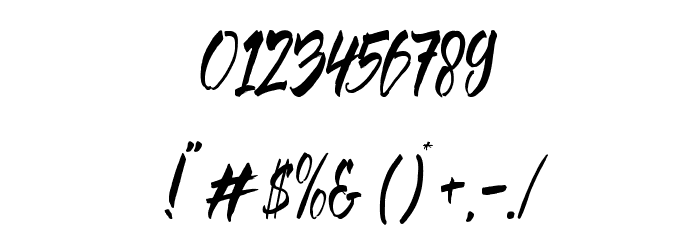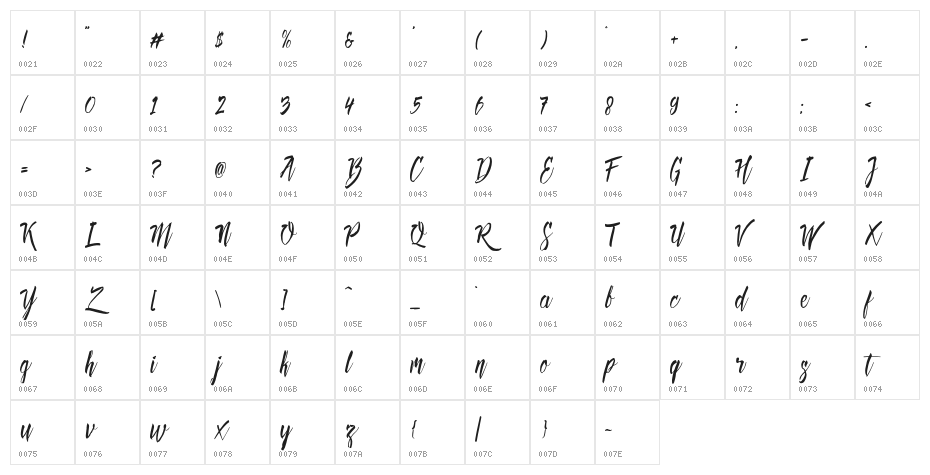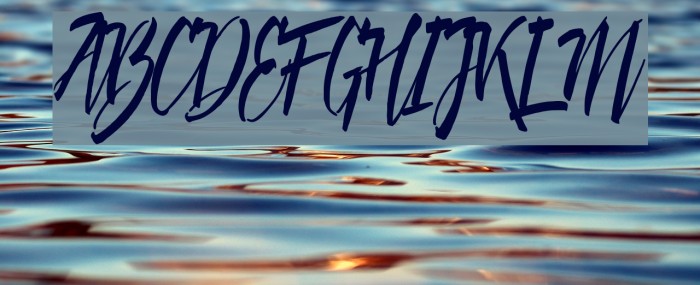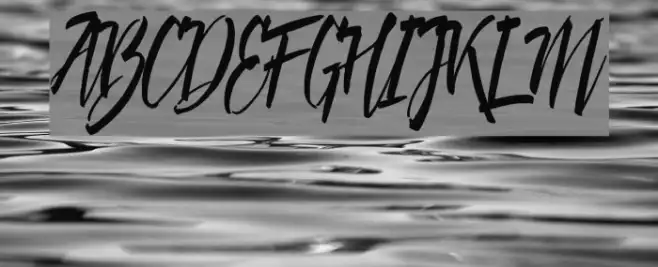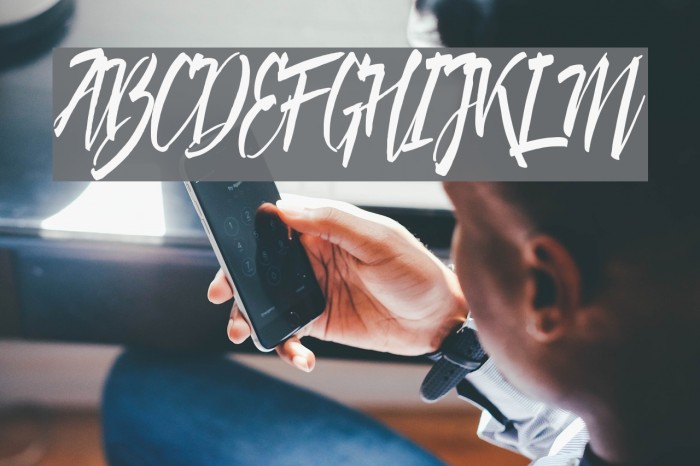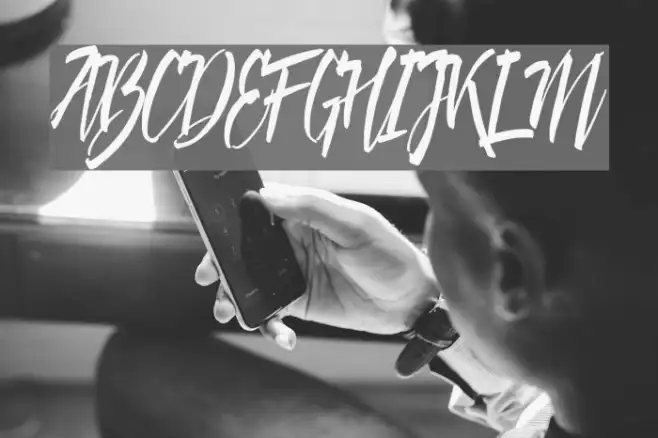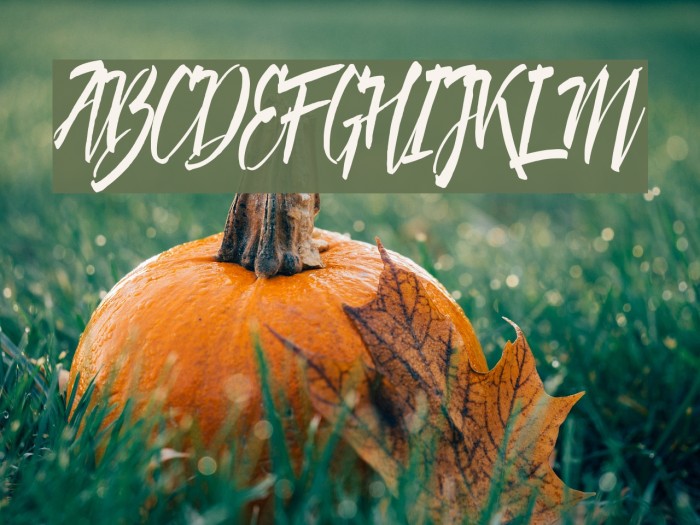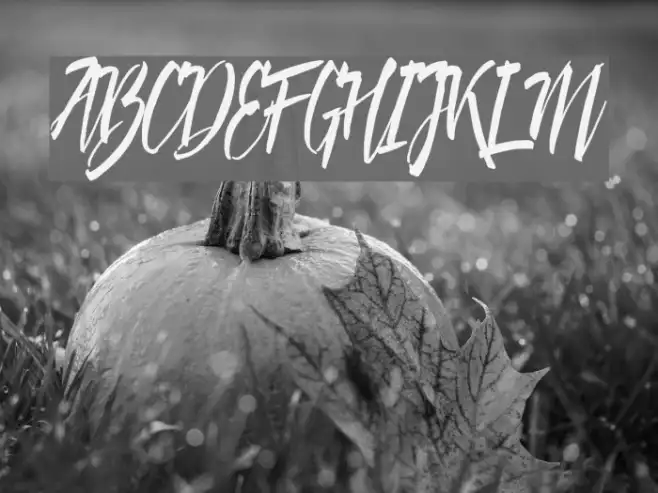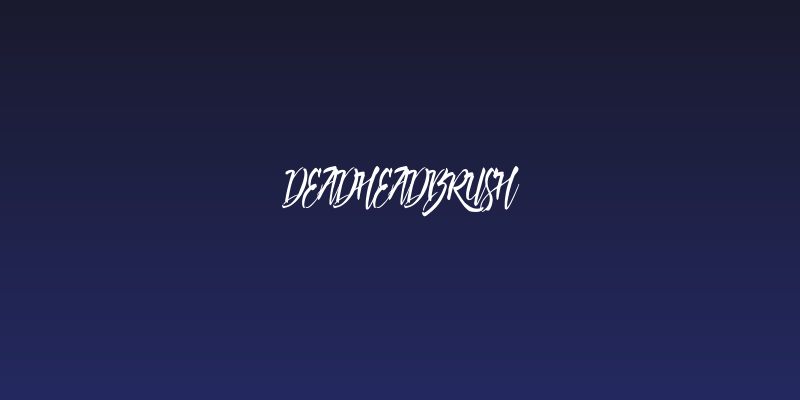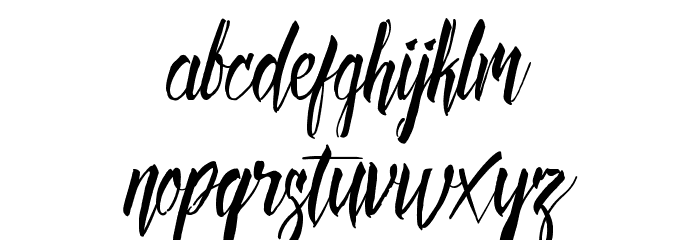
DeadheadBrush Font
DeadheadBrush Description
This font features a dynamic and expressive brush style, characterized by its fluid and energetic strokes. The letters exhibit a natural, hand-drawn quality with varying thicknesses, creating a sense of movement and spontaneity. The uppercase letters are bold and impactful, while the lowercase letters maintain a consistent flow, enhancing readability. Numbers and special characters are crafted with the same artistic flair, making them suitable for creative and artistic projects. The overall appearance is both modern and artistic, ideal for capturing attention and conveying a sense of creativity.